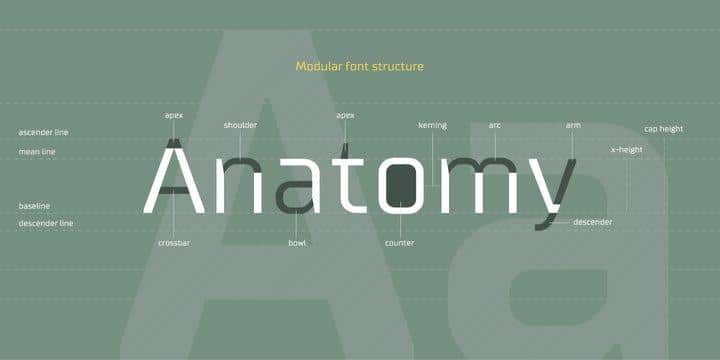
In 2019, we released an entirely new, completely redesigned and significantly expanded version of the typeface called TT Supermolot Neue. In addition to 54 styles, TT Supermolot Neue has stylistic alternates, ligatures, old-style figures and many other useful OpenType features.
TT Supermolot Condensed is the narrow version of the TT Supermolot font family. Thanks to its open forms, TT Supermolot Condensed fits perfectly into any contemporary technological design and navigation systems. We’ve already seen this font family in the sports theme (as the main font for hockey teams branding), we’ve seen TT Supermolot as the main font inside the gameplay of a popular 3D-shooter.
Information transfer in the high-tech areas is the ideal environment for this font family, also TT Supermolot Condensed fits well into army, space, and innovation themes. We’ve tried to create a maximum number of convenient weights (Thin, Light, Regular, Bold, Black) for you to be able to use this family anywhere, from mobile apps and web pages to big state fairs branding.
- Designer: Ivan Gladkikh, TypeType